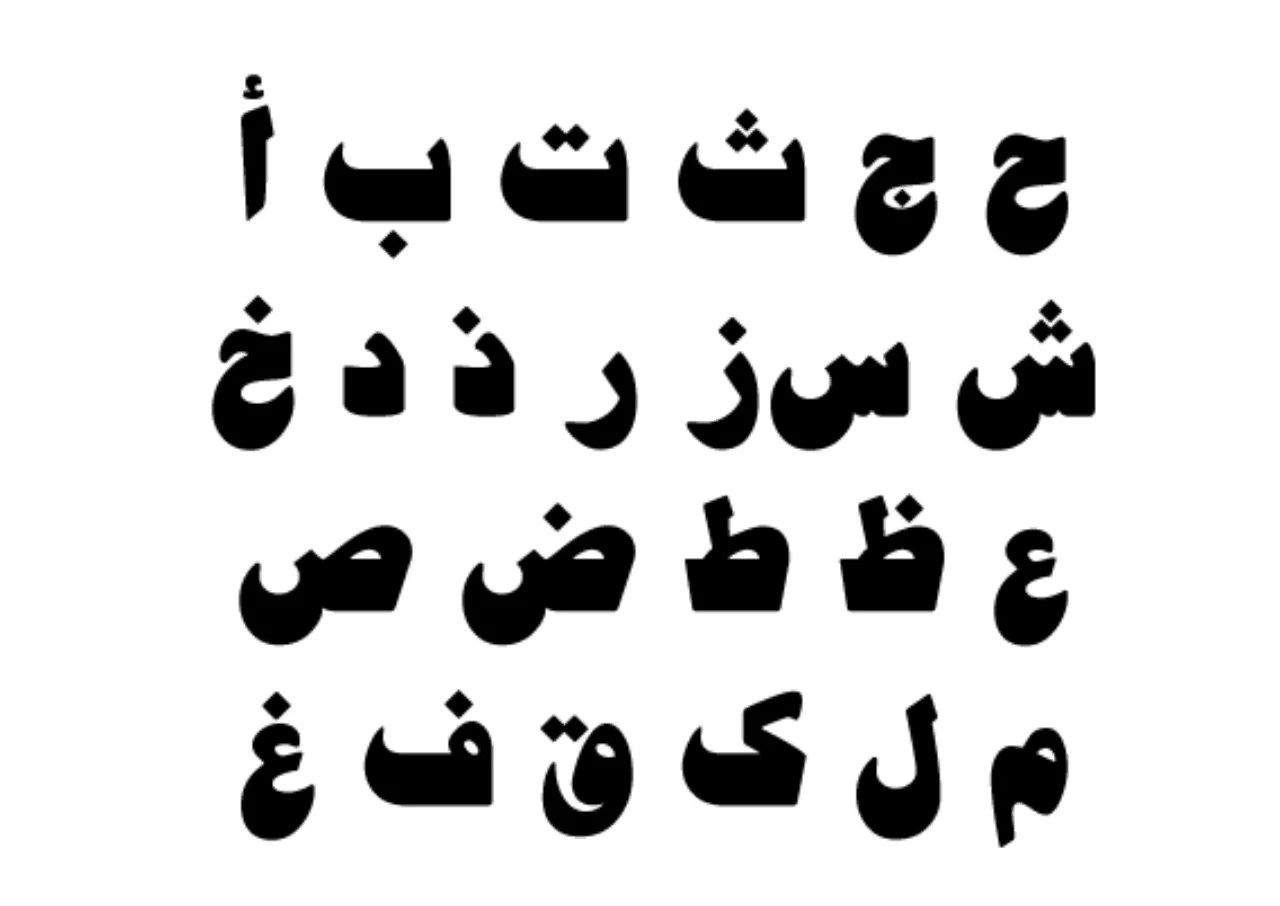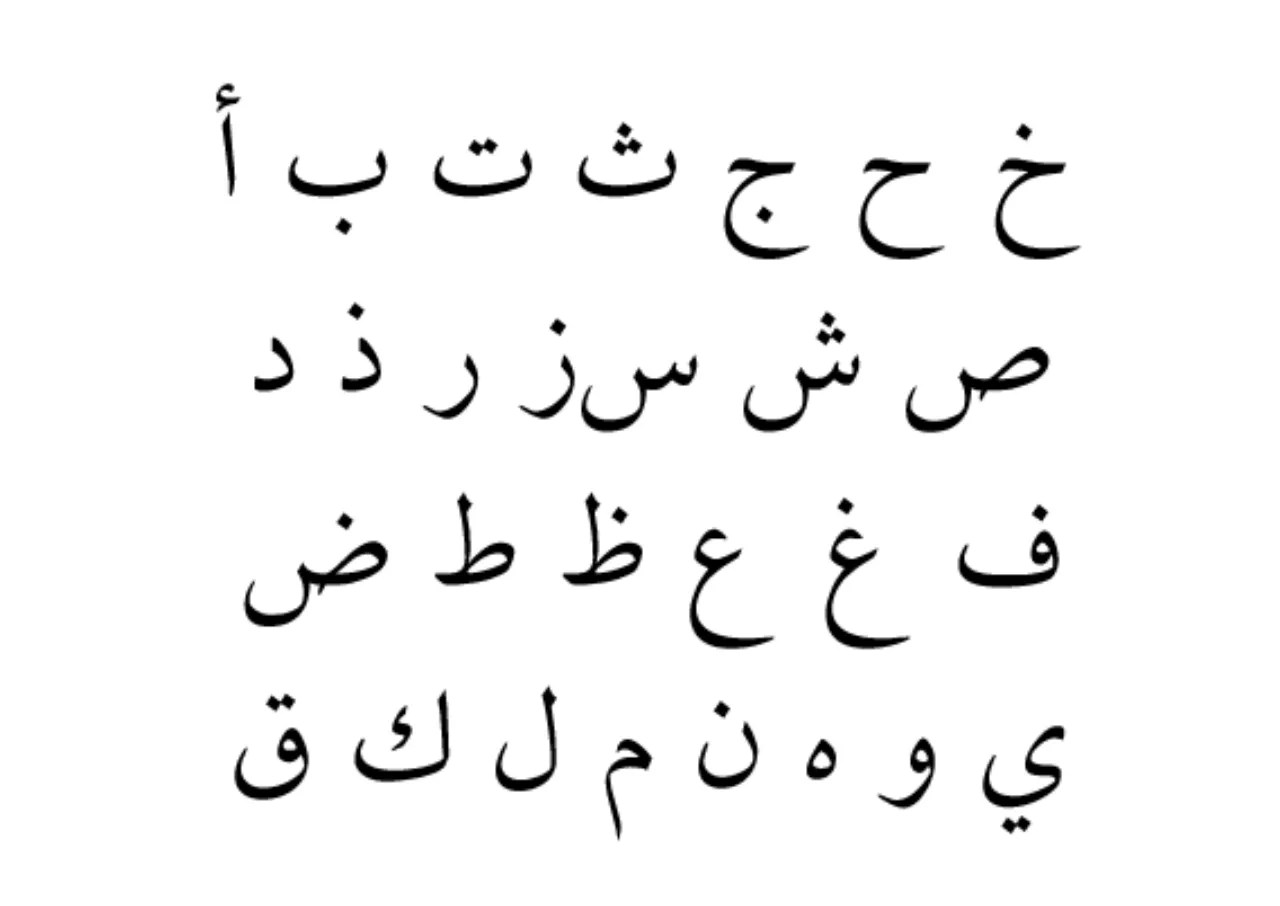
Font Arabic Unicode . Test your web browser and fonts for the ability to display the unicode arabic range of characters. As such, it can be used to produce documents in arabic, farsi, urdu, sindhi,. Arabic typesetting supports all characters from the unicode arabic and arabic extended blocks. Part of alan wood’s unicode resources. Simply paste or type your script below and. Noto kufi arabic is a kufi design for texts in the middle eastern arabicscript. Many scripts in unicode, such as arabic, have special orthographic rules that require certain. The unicode standard consists of a repertoire of more than 107,000 characters covering 90 scripts. The sil arabic script fonts are encoded according to unicode, so your application must support unicode text in order to access letters other. Noto kufi arabic has multiple weights, contains 1,706 glyphs, 16. 257 rows arabic script in unicode. Noto naskh arabic is a modulated (“serif”) naskh design, suitable for texts in the middle eastern arabic script and for use together with serif.
As such, it can be used to produce documents in arabic, farsi, urdu, sindhi,. The unicode standard consists of a repertoire of more than 107,000 characters covering 90 scripts. 257 rows arabic script in unicode. Arabic typesetting supports all characters from the unicode arabic and arabic extended blocks. Noto naskh arabic is a modulated (“serif”) naskh design, suitable for texts in the middle eastern arabic script and for use together with serif. Many scripts in unicode, such as arabic, have special orthographic rules that require certain. Noto kufi arabic has multiple weights, contains 1,706 glyphs, 16. Test your web browser and fonts for the ability to display the unicode arabic range of characters. The sil arabic script fonts are encoded according to unicode, so your application must support unicode text in order to access letters other. Part of alan wood’s unicode resources.
Font Arabic Unicode As such, it can be used to produce documents in arabic, farsi, urdu, sindhi,. Simply paste or type your script below and. Noto kufi arabic is a kufi design for texts in the middle eastern arabicscript. The sil arabic script fonts are encoded according to unicode, so your application must support unicode text in order to access letters other. As such, it can be used to produce documents in arabic, farsi, urdu, sindhi,. Many scripts in unicode, such as arabic, have special orthographic rules that require certain. The unicode standard consists of a repertoire of more than 107,000 characters covering 90 scripts. Arabic typesetting supports all characters from the unicode arabic and arabic extended blocks. Test your web browser and fonts for the ability to display the unicode arabic range of characters. Noto kufi arabic has multiple weights, contains 1,706 glyphs, 16. Noto naskh arabic is a modulated (“serif”) naskh design, suitable for texts in the middle eastern arabic script and for use together with serif. 257 rows arabic script in unicode. Part of alan wood’s unicode resources.
1EE00 Arabic Mathematical Alphabetic Symbols Font Arabic Unicode The unicode standard consists of a repertoire of more than 107,000 characters covering 90 scripts. Test your web browser and fonts for the ability to display the unicode arabic range of characters. Arabic typesetting supports all characters from the unicode arabic and arabic extended blocks. Noto kufi arabic is a kufi design for texts in the middle eastern arabicscript. Noto. Font Arabic Unicode.
Arabic OpenType Opensource Unicode typefaces Plain text Font, arab Font Arabic Unicode Noto kufi arabic is a kufi design for texts in the middle eastern arabicscript. 257 rows arabic script in unicode. The unicode standard consists of a repertoire of more than 107,000 characters covering 90 scripts. Noto kufi arabic has multiple weights, contains 1,706 glyphs, 16. Noto naskh arabic is a modulated (“serif”) naskh design, suitable for texts in the middle. Font Arabic Unicode.
FREE Arabic Keyboard Layout لوحة مفاتيح عربية High Quality ideal Font Arabic Unicode The sil arabic script fonts are encoded according to unicode, so your application must support unicode text in order to access letters other. Arabic typesetting supports all characters from the unicode arabic and arabic extended blocks. Noto kufi arabic has multiple weights, contains 1,706 glyphs, 16. 257 rows arabic script in unicode. As such, it can be used to produce. Font Arabic Unicode.
0600 Arabic Font Arabic Unicode Simply paste or type your script below and. The sil arabic script fonts are encoded according to unicode, so your application must support unicode text in order to access letters other. Part of alan wood’s unicode resources. The unicode standard consists of a repertoire of more than 107,000 characters covering 90 scripts. Arabic typesetting supports all characters from the unicode. Font Arabic Unicode.